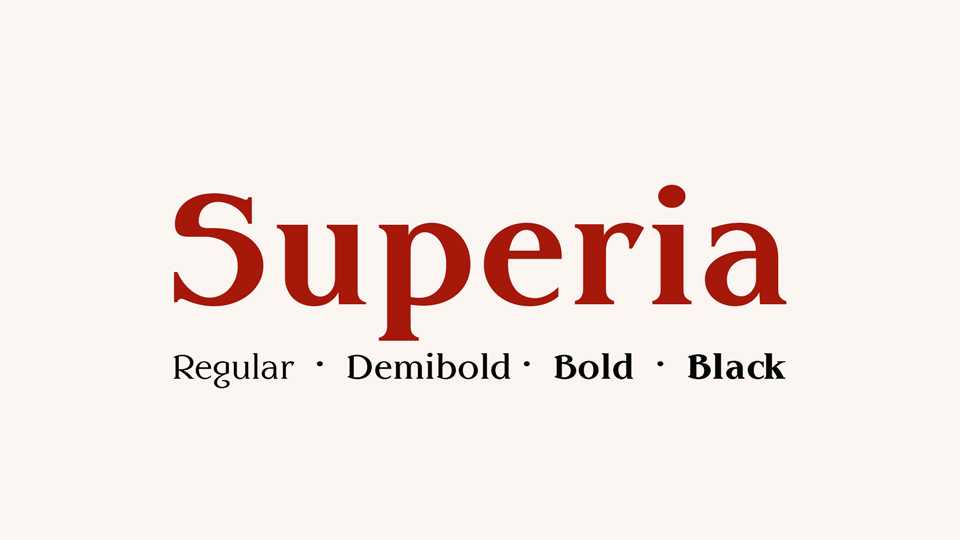
Download Superia typeface, a stylish, but versatile serif font family in four weights for certain issues. With its classic forms and fancy elements Superia will cover a wide range of design projects.
Designer: Frank Baranowski